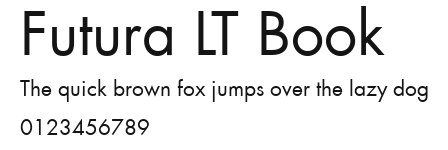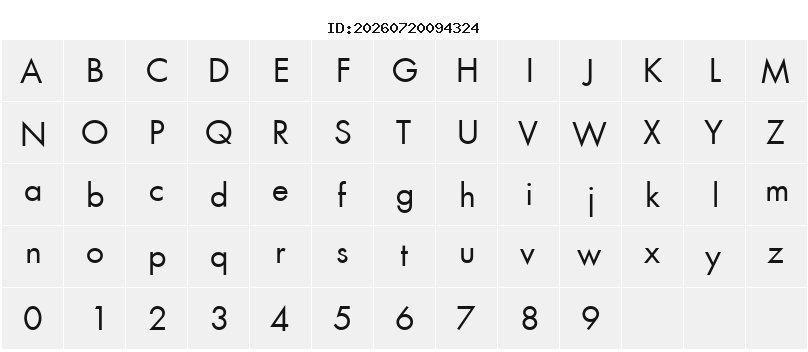
Futura LT Book.ttf is a modern, elegant sans-serif font designed for ultimate readability and visual harmony. Perfect for branding, headlines, web design, and print materials.